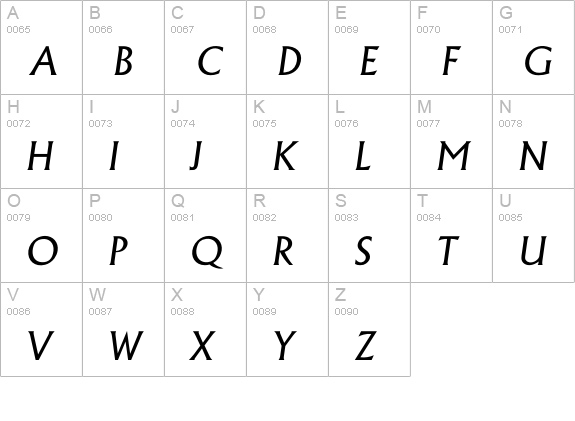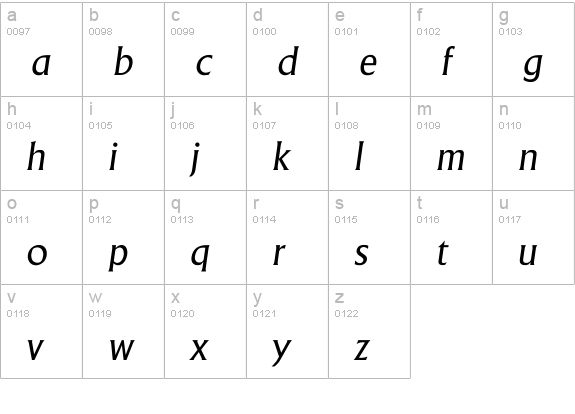
Iadelon Regular Font Details
Iadelon Regular is the standard, neutral variant in the Iadelon typeface family \xE2\x80\x94 well suited to general body text, paragraphs, and standard typographic work.
Introducing Iadelon Regular, a stunning font that effortlessly blends elegance and simplicity. This versatile typeface is perfect for a wide range of design projects, from branding and advertising to invitations and web design. With its clean lines and balanced proportions, Iadelon Regular exudes a timeless appeal that will captivate any audience. What sets Iadelon Regular apart is not only its impeccable design, but also its availability as a free download. Yes, you heard it right - this remarkable font can be yours without spending a dime! Thanks to FontsMarket.com, you can easily access and download Iadelon Regular with just a few clicks. Whether you are a seasoned designer or a novice enthusiast, Iadelon Regular will surely become a valuable addition to your font collection. Its versatility allows it to effortlessly adapt to any project, while its legibility ensures that your message will be conveyed with utmost clarity. From headlines to body text, this font's versatility shines through, making it a reliable choice for any design endeavor. The attention to detail in Iadelon Regular is simply astounding. Each letter is meticulously crafted, ensuring seamless readability and visual harmony. The smooth curves and precise angles create a sense of sophistication and professionalism, making Iadelon Regular an excellent choice for corporate branding or formal invitations. Whether you're designing a sleek logo, a stylish poster, or a chic website, Iadelon Regular will elevate your project to new heights. Its timeless elegance and modern appeal make it a font that will never go out of style. So don't miss out on this incredible opportunity to enhance your designs with Iadelon Regular. Visit FontsMarket.com now and freely download this exceptional font that will undoubtedly leave a lasting impression on your audience.